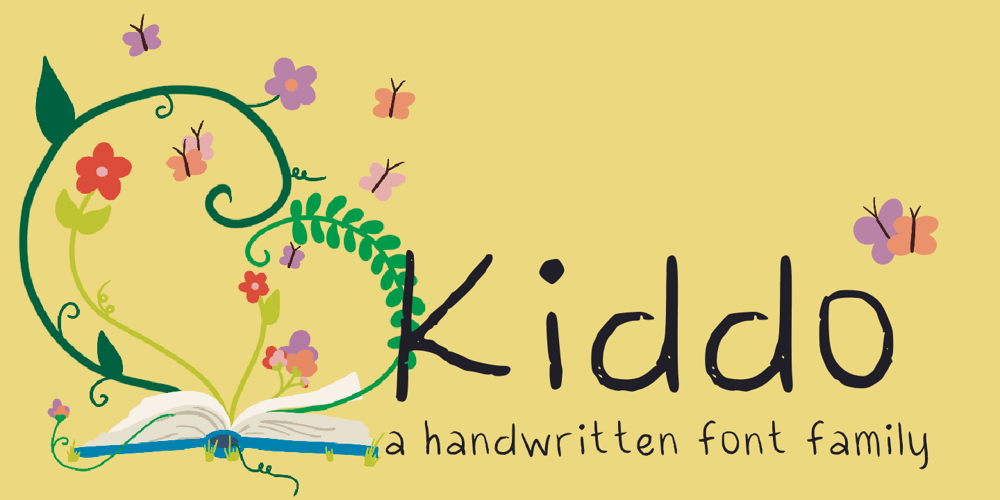
Kiddo Font Family was designed by Elizabeth Ptack and published by EPtackArts. Kiddo contains 4 styles and family package options. Kiddo is a whimsical, handwritten font family created for use along side children’s media. It pairs nicely with Monterrat and other neat, rounded sans serif fonts. It looks great with brightly colored, soft illustrations to create lively layouts full of movement. The characters are simple and easy to read as to not compete with the semi-inconsistent baselines and stroke weights.The line variations add a lot of character to the typeface that really compliments a good story.